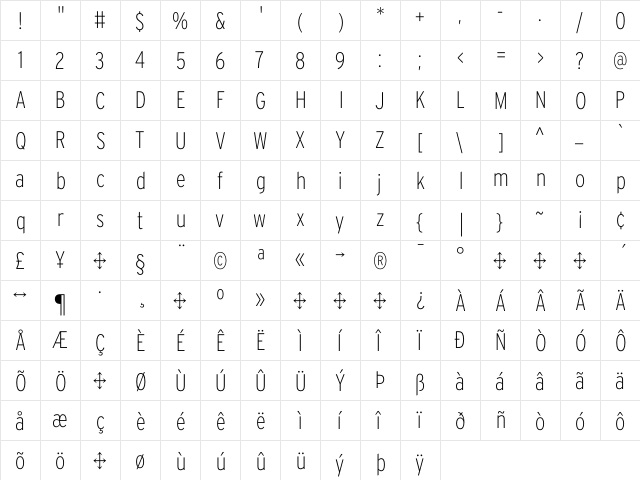
Interstate ExtraLight Cond Font Preview
Interstate ExtraLight Cond
Interstate ExtraLight Cond Font Details
Design Context for Interstate Typeface
Interstate takes a measured approach to typography — its balanced proportions and neutral character make it a reliable workhorse for both digital and print work. The delicate stroke weight brings airiness and refinement to layouts. The condensed width makes it efficient for tight spaces without sacrificing legibility.
Pro Tip: Use Interstate in both headline and body roles to test its range before committing to a single application.